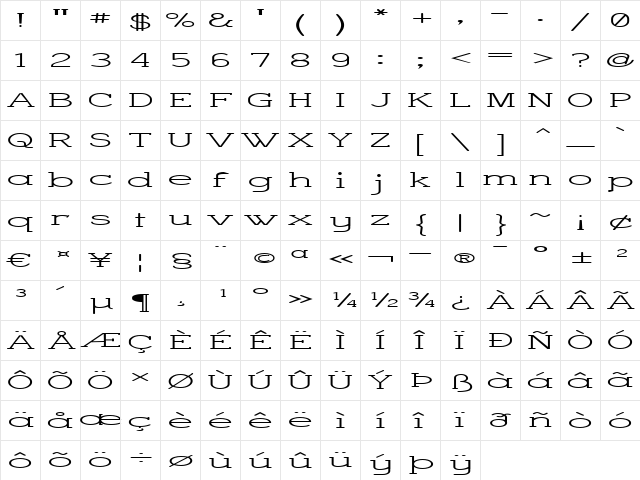
Charrington Superwide Regular
| Designer | G.Meade |
Design Context for Charrington Superwide Typeface
Charrington Superwide offers clean, dependable letterforms without strong stylistic allegiance, making it a practical choice for designers who need flexibility.